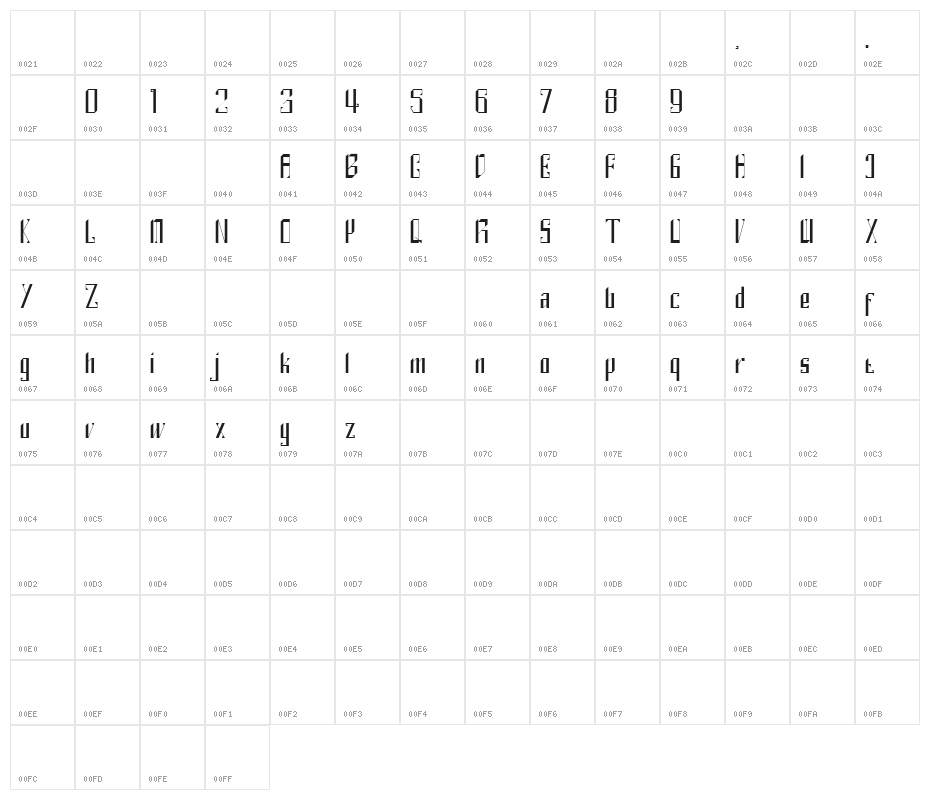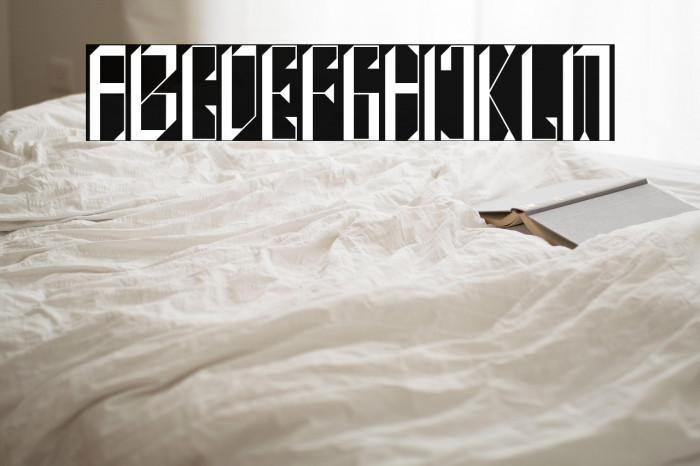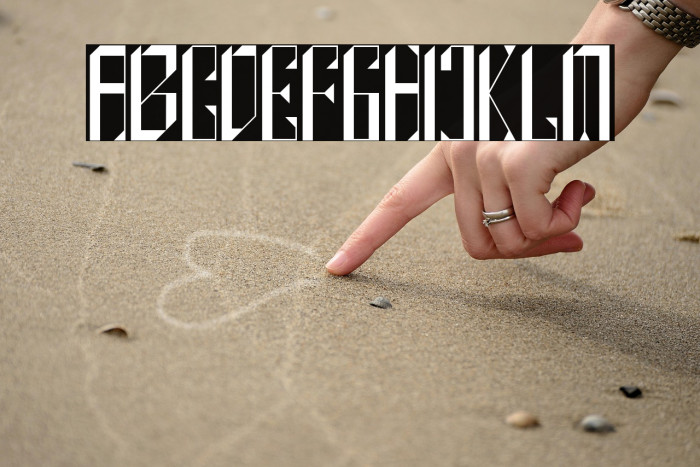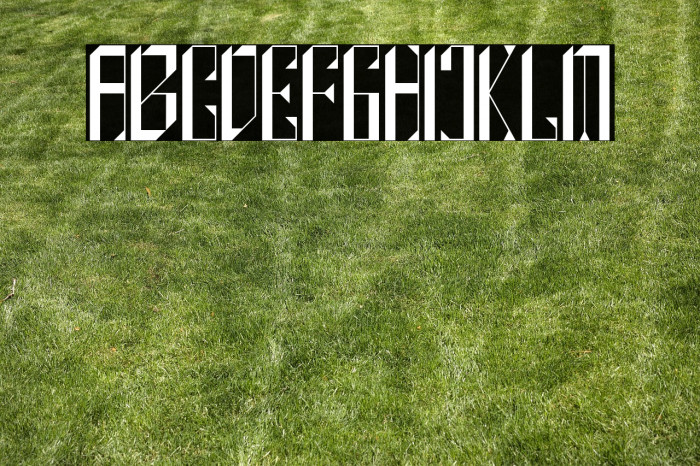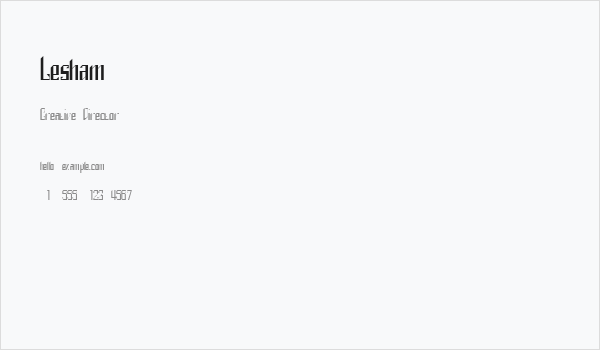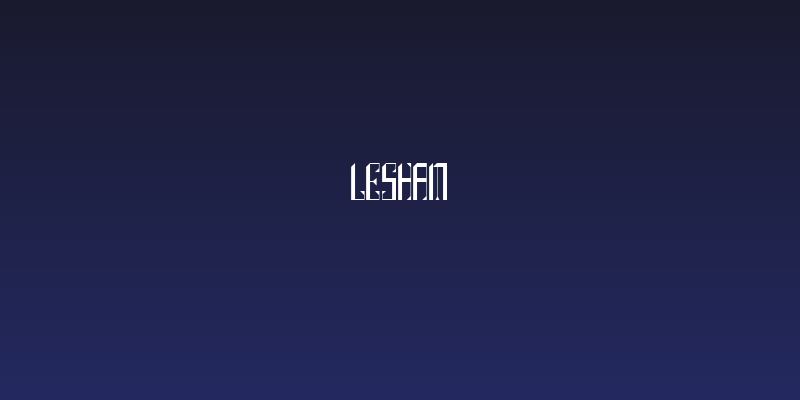
Lesham Font
Lesham Description
This font features a striking geometric design with sharp angles and clean lines, creating a modern and futuristic appearance. The uppercase letters are bold and structured, while the lowercase letters maintain a consistent style with slightly softer edges. Numbers and special characters follow the same geometric theme, ensuring a cohesive look across all characters. The font's unique style makes it stand out, with a high contrast in stroke thickness that adds to its visual impact.
Proposed ProjectsIdeal for branding, logos, posters, and any project requiring a modern and bold statement.